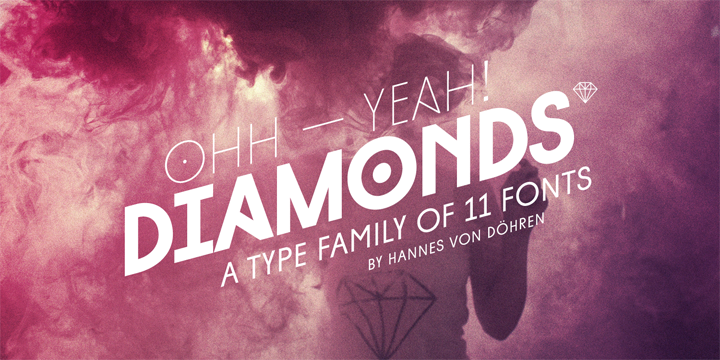
Diamonds Free Download
Diamonds Font Free Download
Perfect for luxury jewelry branding, high-end fashion marketing, premium wedding invitations, exclusive boutique signage, upscale event promotions, precious gemstone packaging, elite lifestyle communications, and sophisticated luxury brand applications.
This font is exciting because it captures the brilliant sparkle and timeless elegance of precious diamonds with crystalline letterforms that embody the exceptional quality and luxurious sophistication found in fine jewelry and premium luxury experiences.
Illuminate your designs with unparalleled brilliance using Diamonds Font Free Download, a luminously sophisticated typeface that embodies the crystalline perfection and timeless elegance of precious gemstones. This exceptional font brings the brilliant sparkle and luxurious sophistication of fine diamonds to contemporary design projects, making it perfect for luxury jewelry brands, high-end fashion houses, and premium lifestyle organizations seeking to convey the exceptional quality and exclusive appeal of precious luxury goods and elite experiences.
Diamonds Font features brilliantly faceted letterforms with crystalline characteristics and precious proportions that immediately evoke the sparkling beauty and luxurious sophistication of fine diamonds. The exquisitely crafted characters combine gemstone aesthetics with elegant functionality, creating immediate associations with luxury excellence, precious quality, and the exclusive sophistication that defines authentic premium jewelry and high-end luxury lifestyle throughout prestigious fashion and luxury goods communities worldwide.
The font's remarkable luxurious character makes it invaluable for jewelry manufacturers, luxury fashion brands, and premium lifestyle businesses where conveying exceptional quality and exclusive sophistication is essential for attracting discerning clientele and maintaining prestigious brand positioning. Whether you're designing materials for diamond jewelry collections showcasing precious craftsmanship, creating marketing content for luxury fashion houses emphasizing exclusive elegance, or developing brand identities for high-end lifestyle services, Diamonds Font delivers the authentic luxury aesthetic that resonates with affluent audiences seeking genuine premium experiences and exceptional quality.
Luxury brand professionals and high-end fashion specialists worldwide choose the Diamonds Font Free Download for projects requiring premium authenticity and exclusive luxury appeal. The font works brilliantly for upscale wedding planners creating elegant celebrations, luxury hotels emphasizing sophisticated hospitality, premium cosmetics companies showcasing exclusive beauty products, and any organization seeking to establish connections with luxury consumers who appreciate exceptional quality and the sophisticated elegance of precious luxury goods and exclusive lifestyle experiences.
The comprehensive Diamonds Font family includes variations that maintain the signature crystalline character while providing design flexibility for diverse luxury and premium applications. Each character demonstrates exceptional attention to precious design principles, ensuring the brilliant character remains authentic and visually compelling across all sizes, from detailed luxury product packaging to large-scale premium boutique signage and exclusive event materials.
This typeface excels in applications where creating atmosphere of luxury sophistication and precious elegance is crucial for establishing premium brand credibility and exclusive market positioning. The crystalline letterforms create immediate associations with exceptional quality that eliminates the need for additional luxury symbols, allowing the typography itself to communicate premium values, exclusive craftsmanship, and the brilliant beauty that diamonds represent in luxury jewelry and high-end lifestyle branding.
Diamonds Font's technical excellence ensures optimal performance across both traditional luxury packaging materials and modern digital platforms used for premium brand marketing and exclusive lifestyle communications. The distinctive letterforms maintain their brilliant appeal when reproduced on various luxury materials, from precious metal engravings to digital displays that must capture the sparkling essence of diamond elegance.